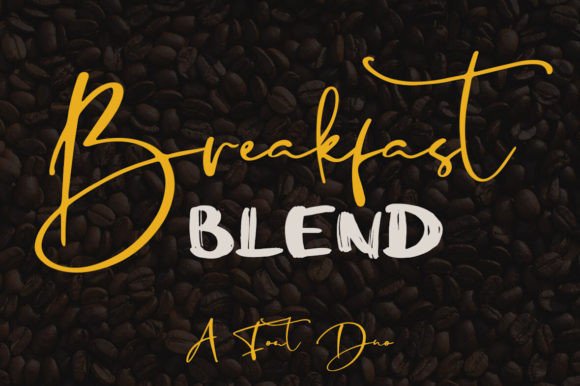
Prepare for a breakfast feast for your creative appetite! Indulge in the delightful menu of Breakfast Blend Font, a hand-crafted symphony of letters that dances with flair and freedom. From the moment you lay your eyes upon this enchanting script font, you'll be captivated by its alluring curves, reminiscent of a graceful signature. Like a dance upon a blank canvas, each character pirouettes and prances, weaving a tale of individuality and style.
Breakfast Blend Font is not just another font; it's a passport to a realm of creativity. Every stroke, every loop, and every flourish is a testament to the art of handwritten beauty. Elevate your designs to new heights, transforming ordinary words into vibrant works of art. Let Breakfast Blend Font be your secret ingredient, adding a dash of whimsy to quotes, a touch of elegance to logos, a sprinkle of charm to advertising, and a dollop of uniqueness to watermarks.
With Breakfast Blend Font, the possibilities are as limitless as your imagination. Create captivating logos that capture the essence of your brand, leaving a lasting impression on your audience. Craft unforgettable quotes that inspire and uplift, like a warm cup of coffee on a crisp morning. Add a touch of personality to your advertising campaigns, ensuring your message stands out amidst the digital clutter. And for those special projects that demand a hint of exclusivity, Breakfast Blend Font is the perfect choice, adding a distinctive watermark that whispers of quality and craftsmanship.
So, dear creative, allow Breakfast Blend Font to awaken your senses and ignite your imagination. Let your fingers dance across your keyboard, guided by the enchanting rhythm of this signature-style script. Transform your designs into masterpieces, captivate your audience with your artistry, and savor the sweet taste of creative fulfillment.